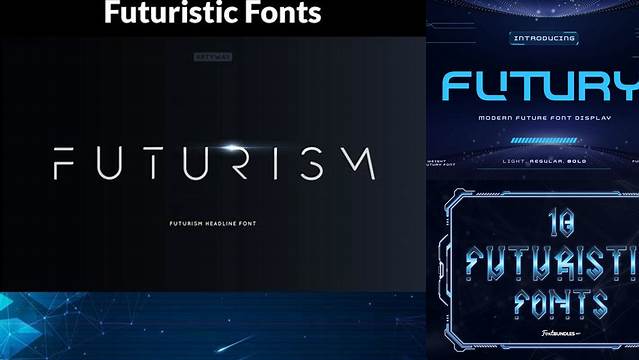
Futuristic Fonts In PowerPoint: A Design Guide
Hey guys! Ever feel like your PowerPoint presentations are stuck in the past? Want to give them a sleek, modern edge that screams innovation? Then you've come to the right place! This guide is all about futuristic fonts in PowerPoint, helping you transform your slides from blah to breathtaking. We'll dive deep into what makes a font futuristic, explore different styles, and show you exactly how to use them to create presentations that wow your audience. Get ready to step into the future of design!
1. Understanding Futuristic Fonts
Let's kick things off by understanding what exactly makes a font "futuristic." It's not just about looking cool; these fonts evoke a sense of technology, innovation, and what's to come. Typically, futuristic fonts often incorporate geometric shapes, sharp angles, and minimalist designs. Think clean lines, bold strokes, and maybe even a touch of the unexpected. A futuristic font can take many forms, from ultra-modern sans-serifs to stylized display fonts. These fonts often ditch traditional serifs (those little feet at the ends of letters) for a cleaner, more streamlined appearance. Some might even use disconnected letterforms or abstract shapes to convey a sense of advanced technology. When choosing a futuristic font, consider the overall message you want to convey. Are you aiming for a high-tech, cutting-edge feel, or something more subtly modern? The right font can make all the difference in setting the tone of your presentation. Remember, the key is to find a balance between style and readability. A font can be incredibly futuristic, but if your audience can't easily read it, it's not going to be effective. We'll delve into the balance between style and function a bit later, but itβs a crucial aspect to keep in mind.
2. Key Characteristics of Futuristic Fonts
Okay, so we know futuristic fonts look cool, but what are the specific characteristics that define them? Let's break it down. First up, we've got geometric shapes. Think circles, squares, triangles β these forms are often integrated into the letterforms themselves. This creates a sense of precision and structure, which is a hallmark of futuristic design. Then there are the sharp angles. Forget rounded edges; futuristic fonts often feature crisp, angular lines that convey a sense of dynamism and forward motion. You'll also notice a lot of minimalism. Less is more in the future! Futuristic fonts often strip away unnecessary details, focusing on the essential forms of the letters. This can result in a clean, uncluttered look that's both modern and highly readable. Many futuristic fonts also sport clean lines which are essential for a modern and uncluttered look. These lines contribute to the overall sense of sleekness and sophistication. Finally, don't forget the element of innovation. The best futuristic fonts push boundaries and experiment with new forms and styles. They might incorporate unexpected elements or break traditional typography rules to create a truly unique visual impact. Knowing these characteristics will help you identify and choose the perfect futuristic font for your PowerPoint presentation.
3. Best Practices for Using Futuristic Fonts in PowerPoint
Alright, you've got your futuristic font picked out, but how do you actually use it effectively in PowerPoint? Here are some best practices to keep in mind. First and foremost, balance readability with style. A super-cool, ultra-futuristic font might look amazing, but if your audience can't easily read it, you're defeating the purpose. Use it sparingly, perhaps for headings or titles, and pair it with a simpler, more legible font for body text. Contrast is your friend! Use your futuristic font to highlight key information and create visual interest, but don't overdo it. Too much of a good thing can become overwhelming. Think about color palettes too. Futuristic fonts often pair well with bold, contrasting colors or a minimalist black and white scheme. Consider using your futuristic font for headings and titles, while sticking to a more traditional font for body text. This creates a visual hierarchy and ensures readability. And last but not least, test your presentation on different screens and projectors to make sure your font renders correctly and looks its best. There's nothing worse than designing a stunning presentation only to have it look distorted or pixelated on the big screen. By following these best practices, you can use futuristic fonts to create presentations that are both visually striking and highly effective.
4. Top 10 Futuristic Fonts for PowerPoint
Okay, let's get down to the nitty-gritty β the fonts themselves! Here are ten futuristic fonts that are sure to give your PowerPoint presentations a cutting-edge look.
- Bebas Neue: This sans-serif font is a classic choice for a clean, modern aesthetic. It's tall, narrow, and highly legible, making it perfect for headings and titles.
- Raleway: Another excellent sans-serif option, Raleway has a slightly more elegant feel than Bebas Neue. It's versatile enough to be used for both headings and body text.
- Montserrat: This geometric sans-serif is incredibly popular for its clean lines and balanced proportions. It's a great choice for a wide range of projects, including PowerPoint presentations.
- Oswald: With its condensed design and bold strokes, Oswald is a great option for headlines and subheadings. It's impactful and easy to read, even at smaller sizes.
- Exo 2: This font is a more explicitly futuristic choice, with its rounded forms and slightly techy vibe. It's ideal for presentations focused on technology or innovation.
- Nexa: Nexa is a geometric sans-serif with a modern, minimalist feel. It's available in a variety of weights, giving you plenty of flexibility.
- Poppins: This geometric sans-serif is known for its clean, friendly appearance. It's a versatile choice that works well for both headings and body text.
- Rajdhani: If you're looking for a font with a slightly more industrial feel, Rajdhani is a great option. Its strong, angular forms convey a sense of strength and precision.
- Aileron: Aileron is a slightly condensed sans-serif with a modern, professional look. It's a great choice for presentations aimed at a business audience.
- Coda: This font features rounded terminals and a slightly quirky design, making it a fun and futuristic option for creative presentations.
These are just a few of the many fantastic futuristic fonts out there. Experiment with different options to find the perfect fit for your project.
5. Sans-Serif Futuristic Fonts
As we've seen in the list above, many futuristic fonts fall into the sans-serif category. But why is that? Well, sans-serif fonts are generally characterized by their clean lines and lack of serifs (those little decorative strokes at the ends of letters). This inherently gives them a modern, minimalist feel, which aligns perfectly with the futuristic aesthetic. Sans-serif fonts tend to be more legible on screens, making them an excellent choice for PowerPoint presentations. Plus, their simplicity allows them to pair well with a variety of other design elements, from images and graphics to colors and animations. When choosing a sans-serif font for a futuristic presentation, look for options with geometric shapes, clean lines, and a balanced design. Fonts like Bebas Neue, Raleway, and Montserrat are all excellent examples of sans-serif fonts that can give your presentation a sleek, modern look. Remember to consider the overall tone of your presentation when selecting a sans-serif font. Some fonts are more serious and professional, while others are more playful and creative. Choose a font that aligns with your message and target audience.
6. Display Futuristic Fonts
While sans-serif fonts are great for general use, display futuristic fonts are where you can really let your creativity shine. These fonts are designed to make a statement, often featuring unique shapes, bold strokes, and unconventional designs. They're perfect for headings, titles, and other prominent text elements where you want to grab your audience's attention. However, it's important to use display fonts sparingly. Because they're often less legible than sans-serif fonts, they're not ideal for body text. Think of them as accents β use them to highlight key information and create visual interest, but don't overdo it. When choosing a display font, consider the overall tone of your presentation. Are you going for a high-tech, cutting-edge feel, or something more artistic and experimental? There are display fonts to suit every style, from sleek and minimalist to bold and graphic. Don't be afraid to try something new and push the boundaries of your design. Just remember to balance style with readability and ensure that your chosen font complements the rest of your presentation.
30. Inspiring Examples of Futuristic Font Usage in Presentations
Last but not least, let's get inspired! Let's check out some real-world examples of how futuristic fonts are used effectively in presentations. Looking at successful designs can give you fresh ideas and help you see how different fonts can be used in creative ways. Think about presentations from tech conferences, design agencies, and innovative startups. These presentations often showcase cutting-edge design trends, including the use of futuristic fonts. Pay attention to how the fonts are paired with other design elements, such as colors, images, and graphics. Notice how the typography contributes to the overall tone and message of the presentation. Look for examples of presentations that use futuristic fonts in both headings and body text, and consider how they balance style with readability. Explore online presentation platforms like Behance and Dribbble for inspiration. These sites are a treasure trove of design examples from talented creatives around the world. By studying inspiring examples of futuristic font usage, you can develop your own design skills and create presentations that are both visually stunning and highly effective. So go forth and get inspired!